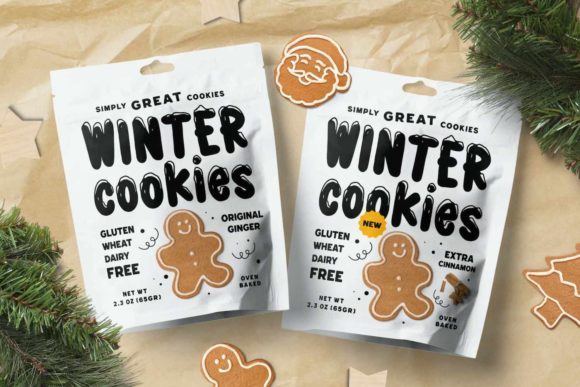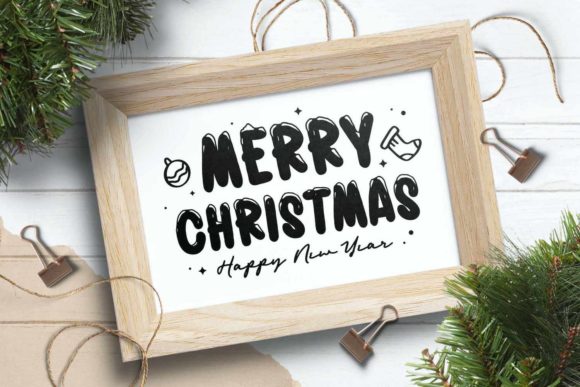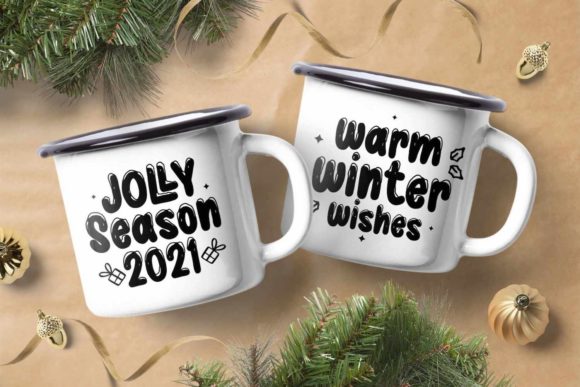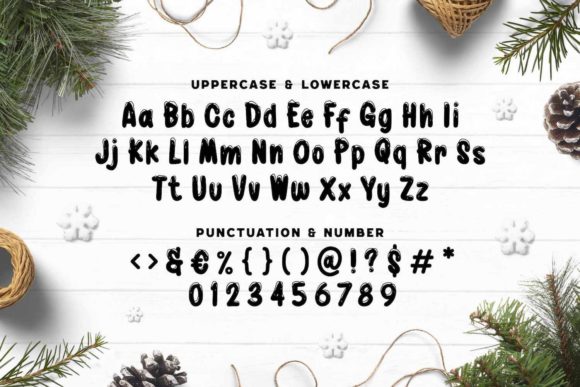
The Magic of Winter Design: Introducing Balls Snowing Font
Have you ever sat by the window on a snowy night, watching the flakes gently fall, and suddenly, an idea strikes? For designers, this moment of creative spark is often the starting point of something truly special. And for those who love the winter season, a font that captures the essence of the snowflakes is a dream come true.
Enter the Balls Snowing Font, a delightful display font that’s perfect for bringing a touch of winter wonder to your designs. Whether you’re creating Christmas cards, invitations, or winter party materials, this font is sure to add a festive touch. Its playful, whimsical feel makes it a valuable addition to any designer’s toolkit, allowing them to create unique and eye-catching designs that capture the magic of the season.
Balls Snowing Font Key Features
- Unique Characteristic: Animated snowflakes and balls effect, perfect for winter-themed designs
- Characters: Includes a wide range of characters, including uppercase and lowercase letters, numbers, and symbols
Balls Snowing Font Review
Overall, I’m really impressed with the Balls Snowing Font. ✨ The unique and creative design of the font is sure to capture attention and add a touch of whimsy to any project. The font is perfect for winter-themed designs, holiday cards, or even just adding a bit of fun to a blog post.
- ✨ Unique and creative design that sets it apart from other fonts.
- ✨ Perfect for winter-themed designs and holiday projects.
- ✨ Works well in both digital and print formats.
- ⚠️ Limited versatility – the font is very specific in its design and may not be suitable for all types of projects.
- ⚠️ May be difficult to read for those with certain vision impairments due to the unique design.
Overall, I would highly recommend the Balls Snowing Font for anyone looking to add a touch of winter wonder to their project. While it may have some limitations, the unique design and versatility make it a great addition to any designer’s toolkit.
For best results, use the Balls Snowing Font in bold or italic styles to add emphasis to your text. You can also experiment with different font sizes and colors to create visual interest.
The Balls Snowing Font is ideal for use in titles, headings, and other display text where a playful and whimsical feel is desired. It’s also great for creating eye-catching graphics and designs for social media, marketing materials, and more.
The recommended font size for the Balls Snowing Font is between 12pt and 24pt. This range provides optimal readability and allows the font’s unique characteristics to shine through. However, feel free to experiment with different font sizes to achieve the desired visual effect for your design project.